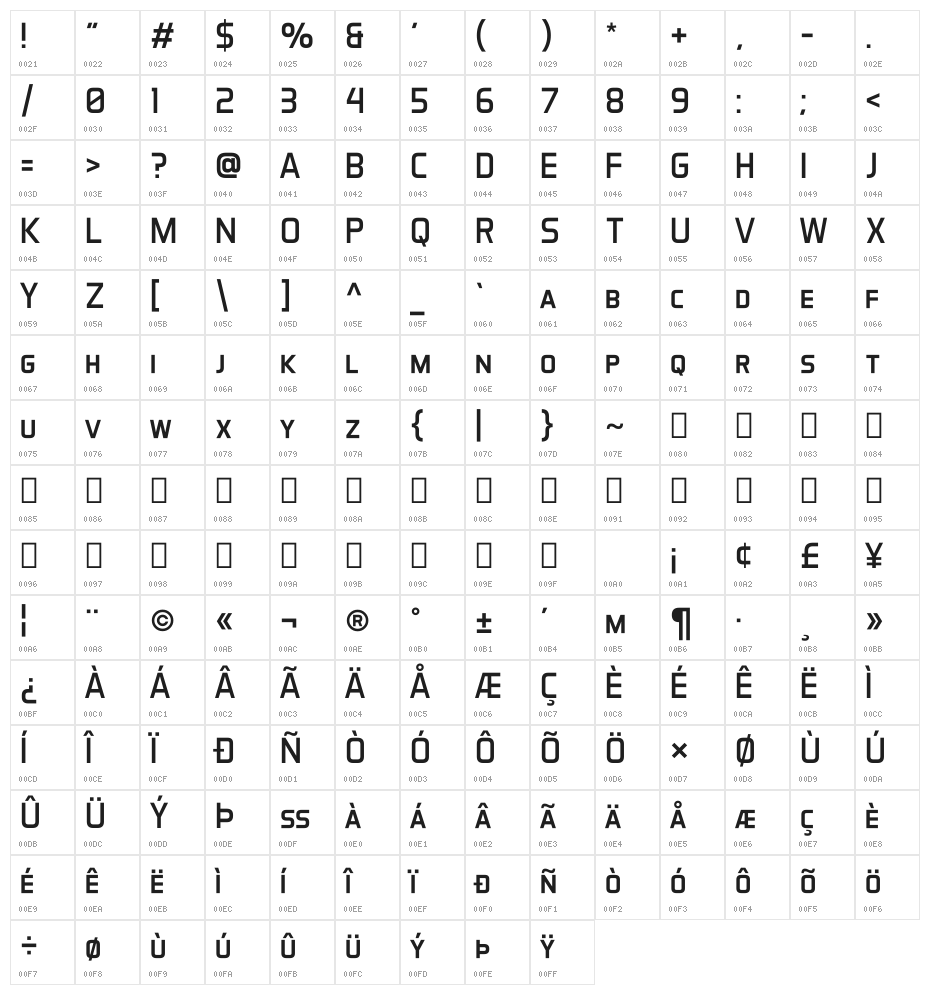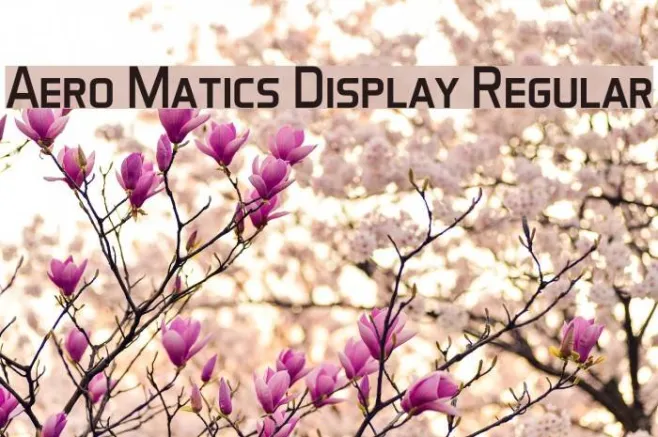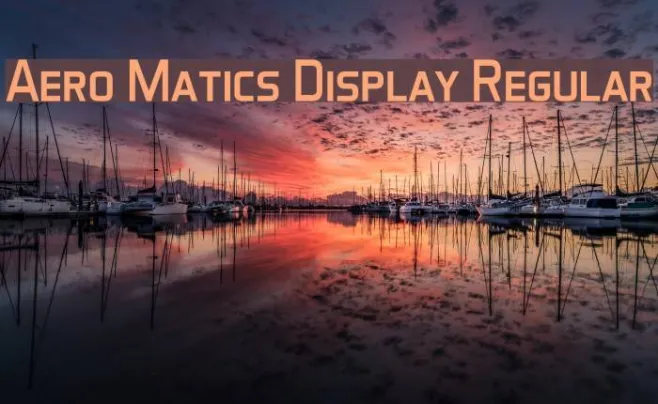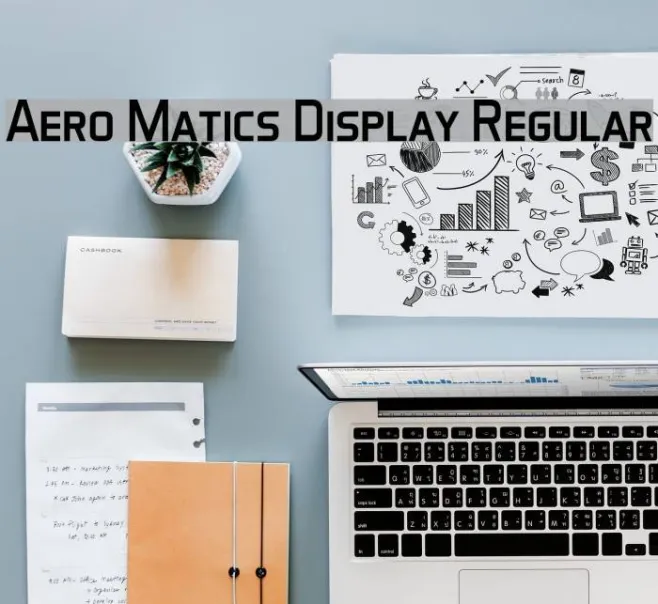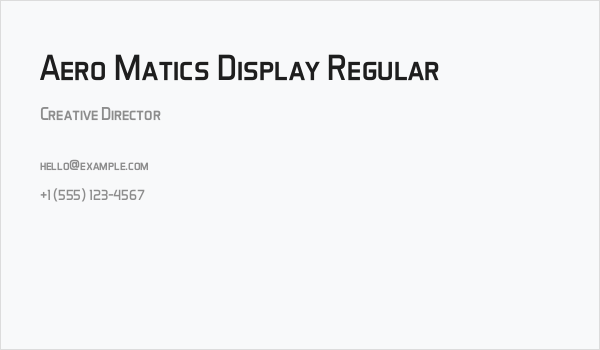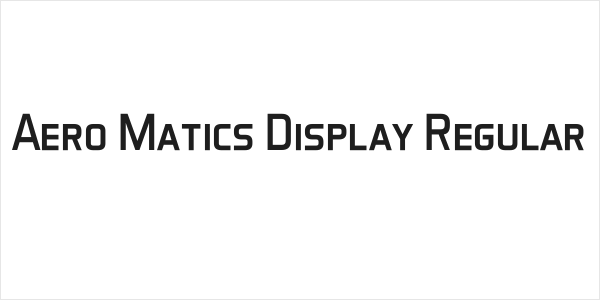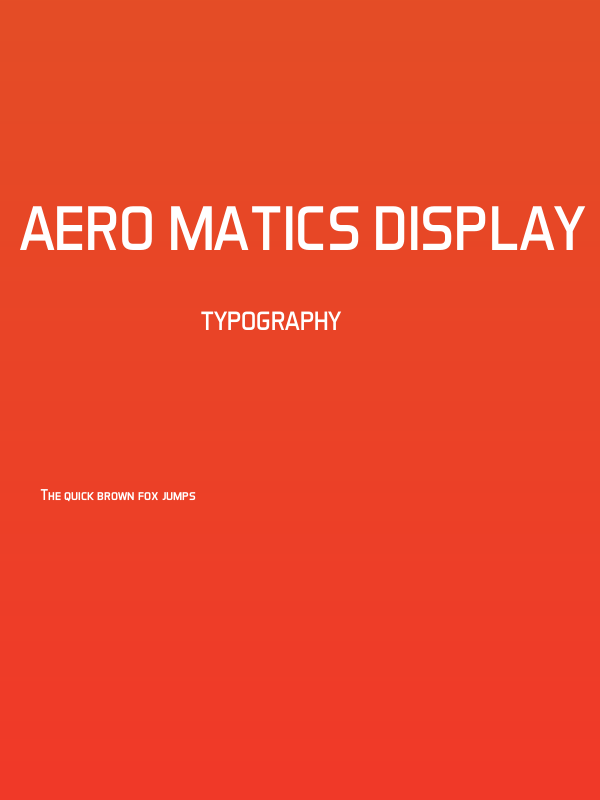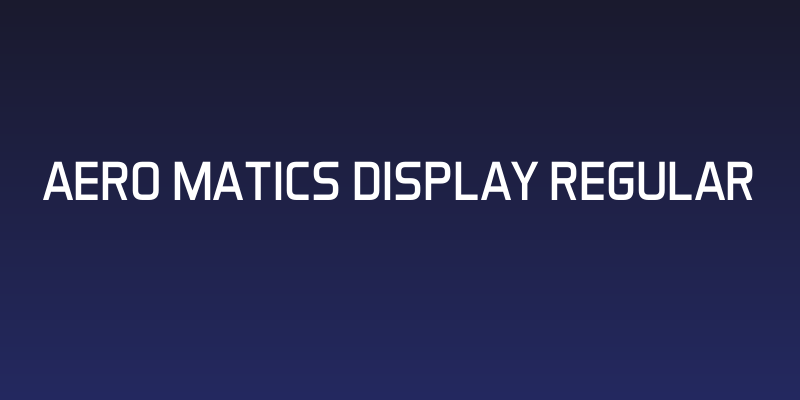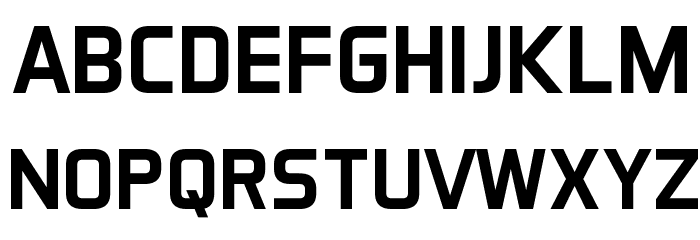
Aero Matics Display Regular Font
Aero Matics Display Regular Description
This font features a sleek, geometric design with a modern aesthetic. The characters are bold and uniform, with a strong presence that makes them ideal for display purposes. The uppercase letters are particularly striking, with clean lines and a slightly condensed form that adds to their impact. The numerals are equally bold, maintaining the same geometric style, which ensures consistency across different types of content. Special characters are well-integrated, providing a comprehensive set for various design needs. The overall look is futuristic and professional, making it suitable for projects that require a modern and assertive typeface.
| Proposed Projects | Ideal for branding, advertising, headlines, and digital interfaces where a modern and impactful look is desired. |